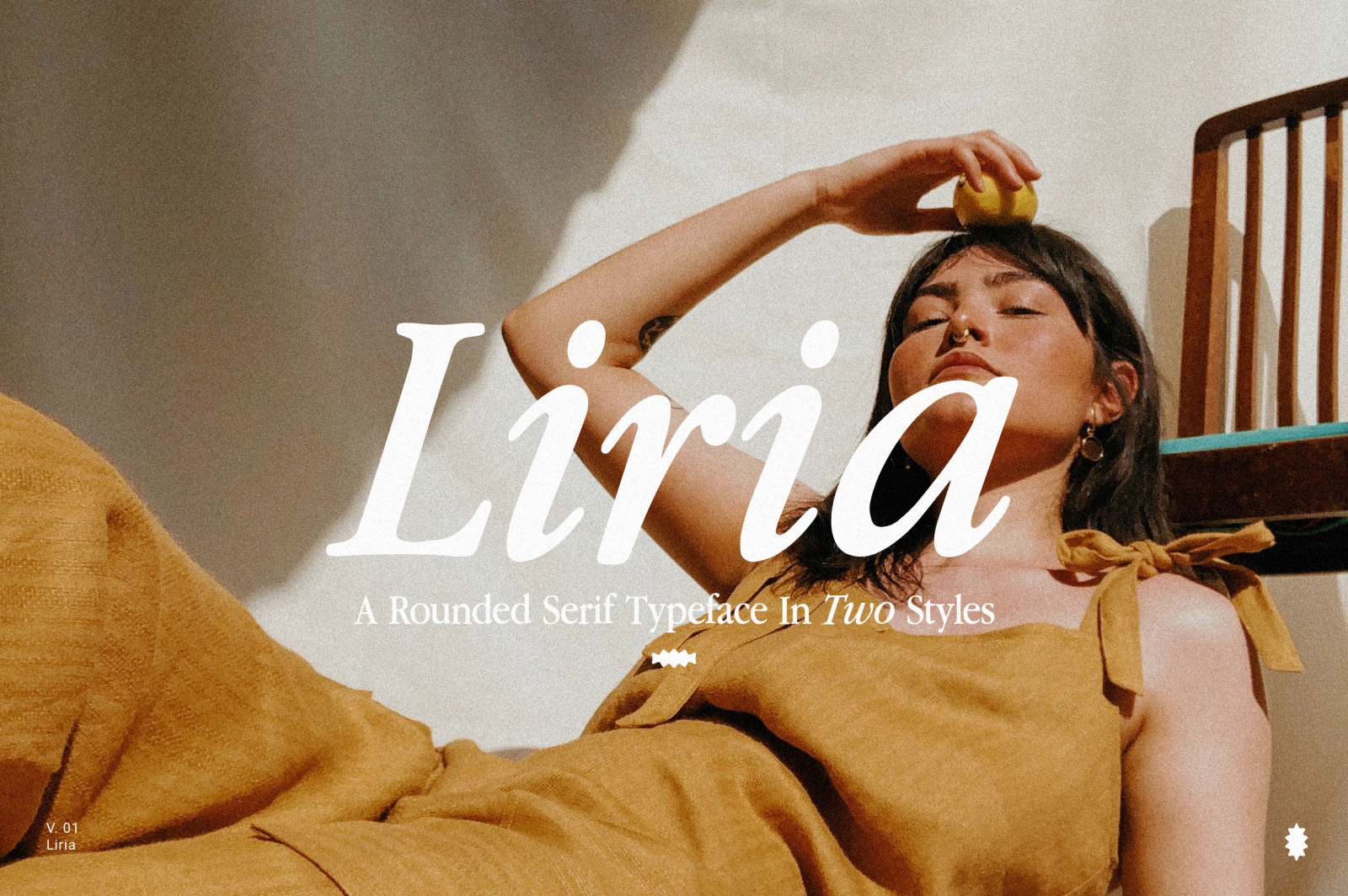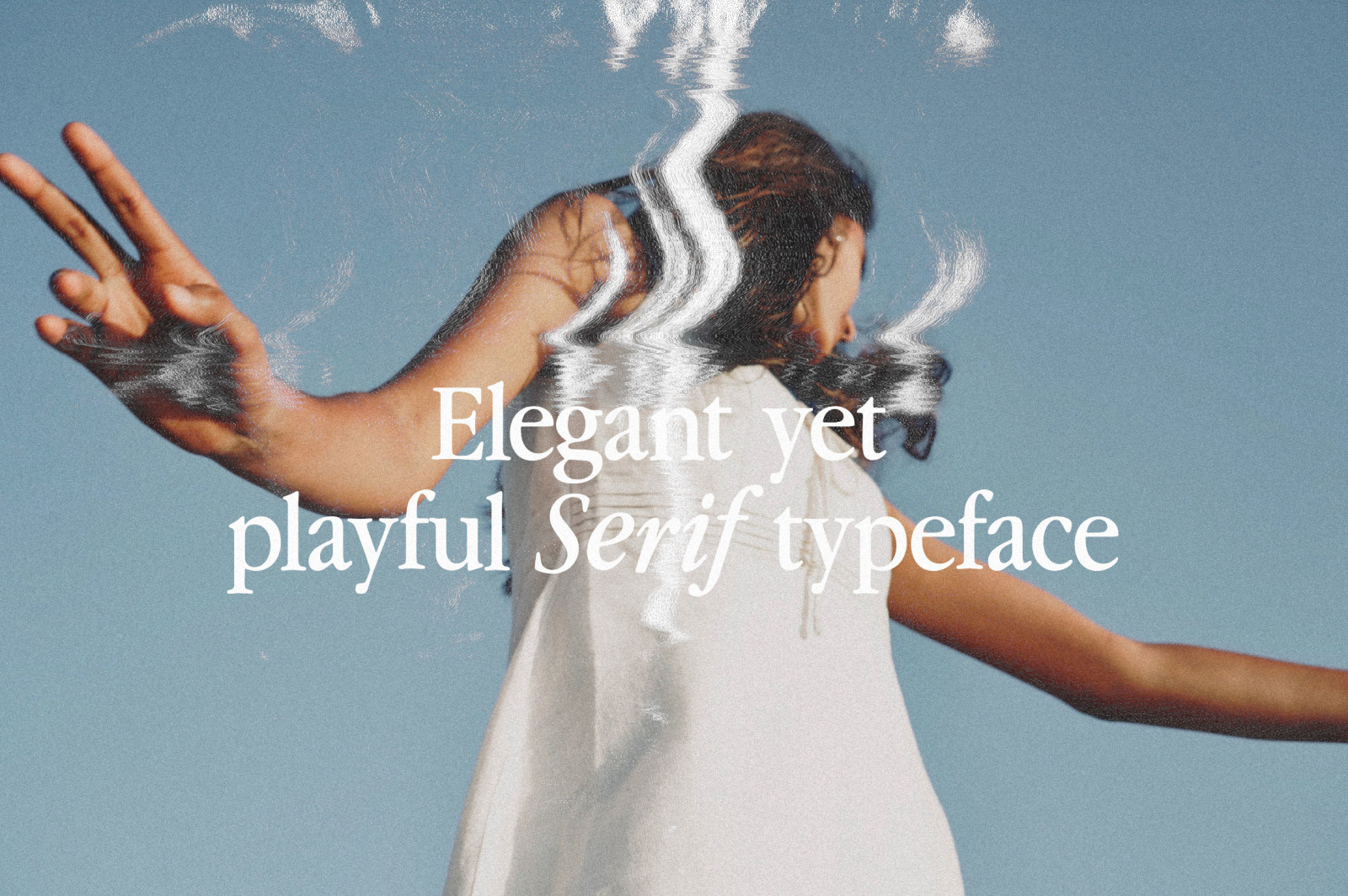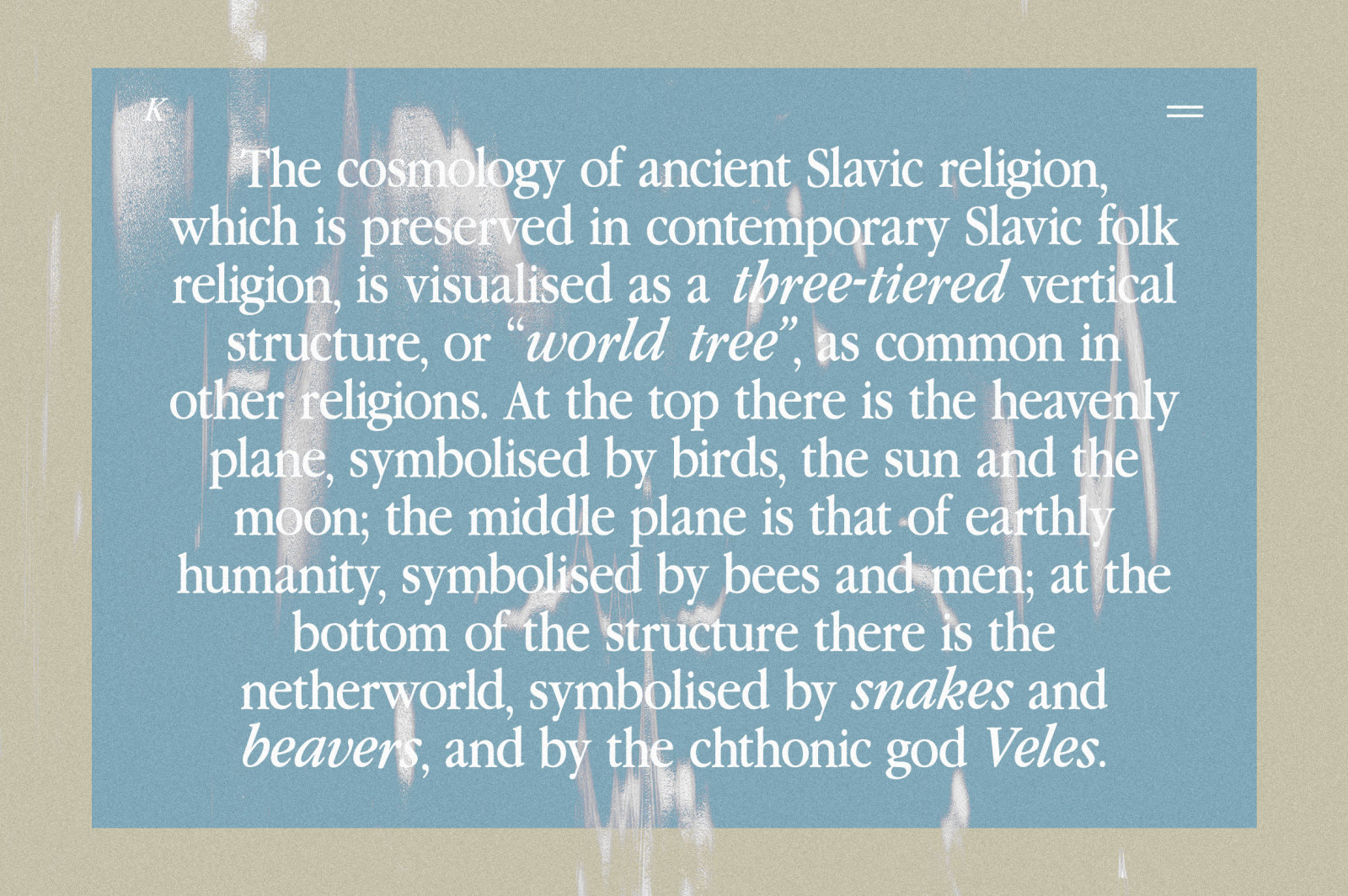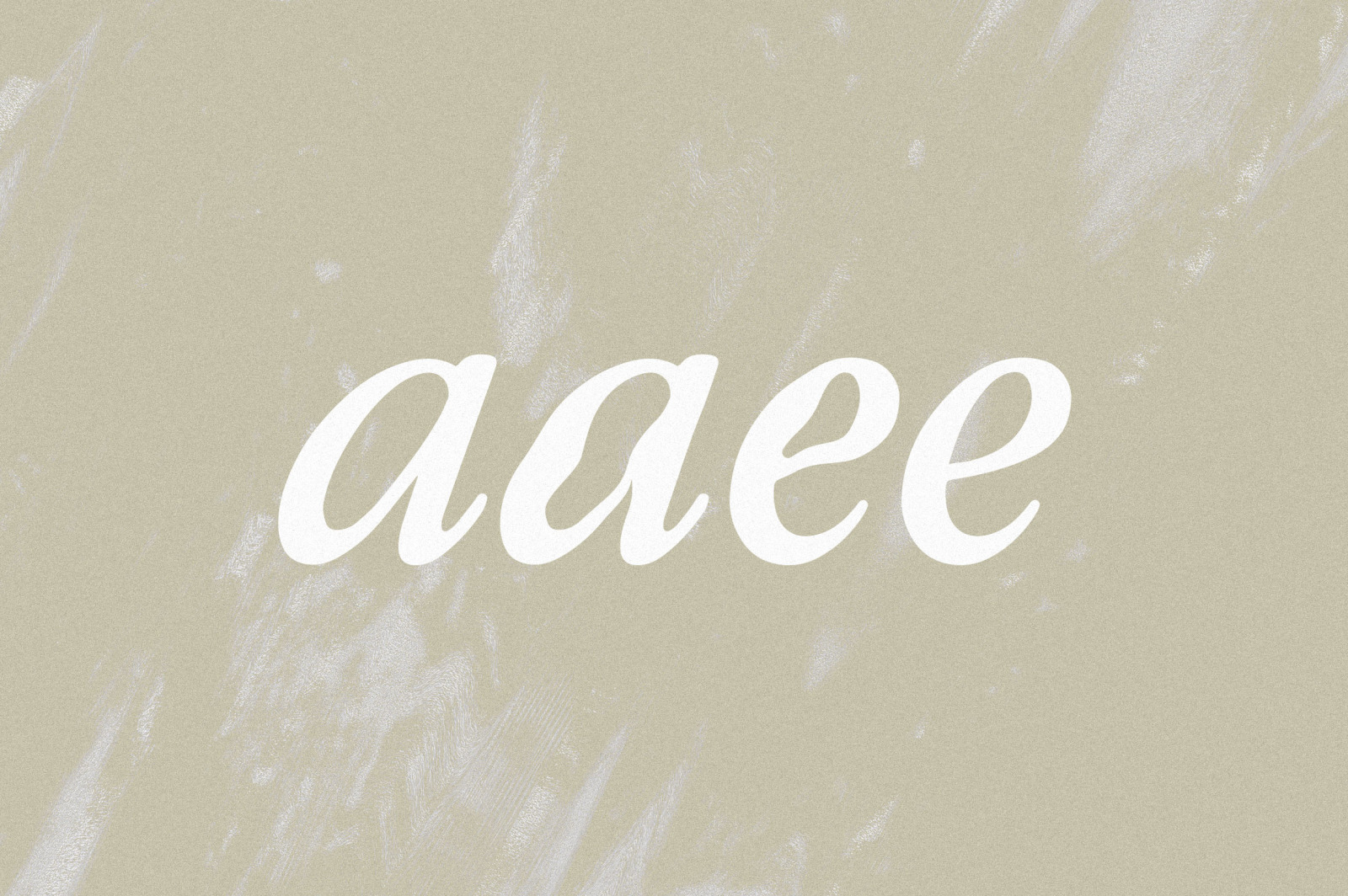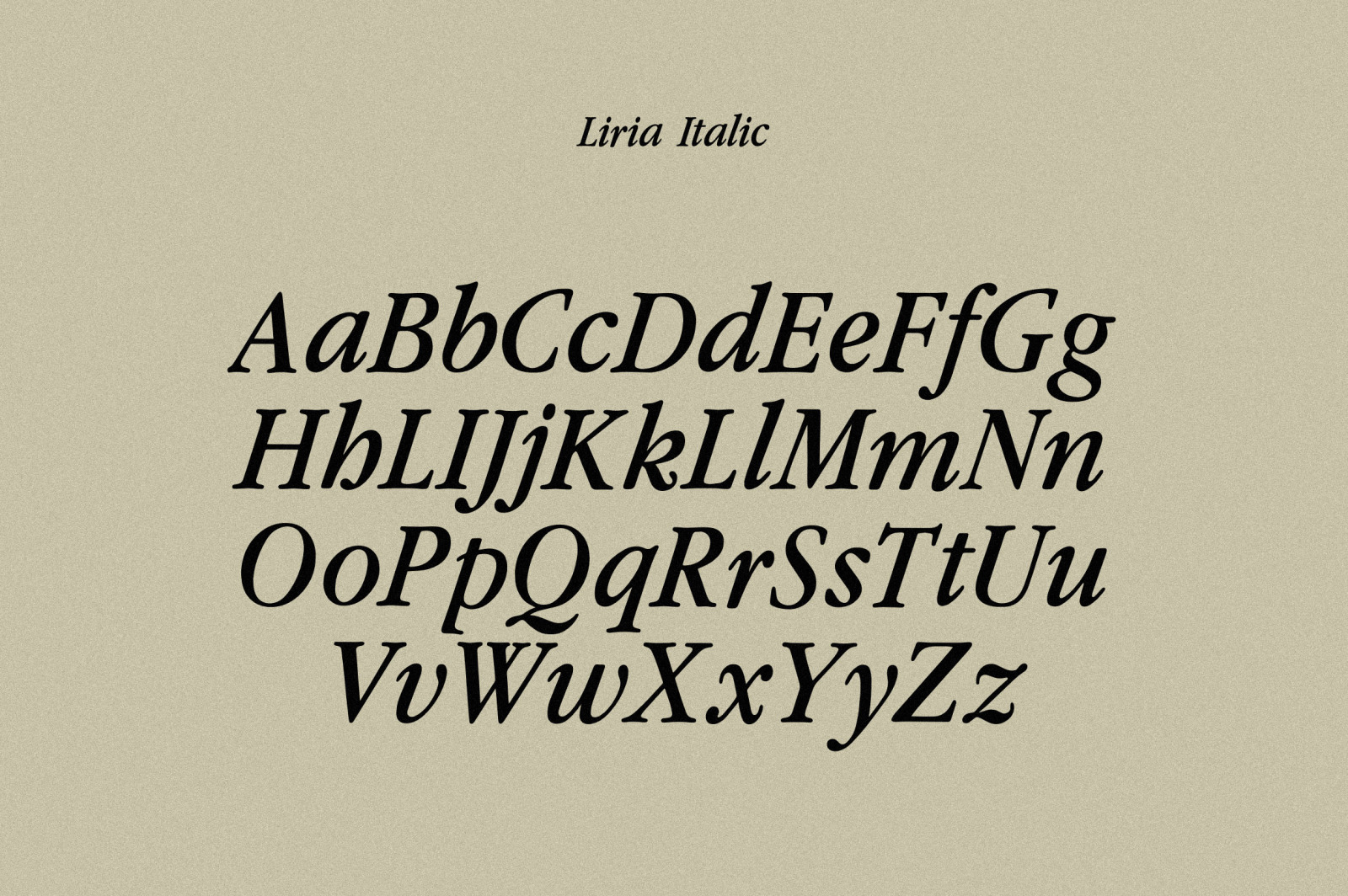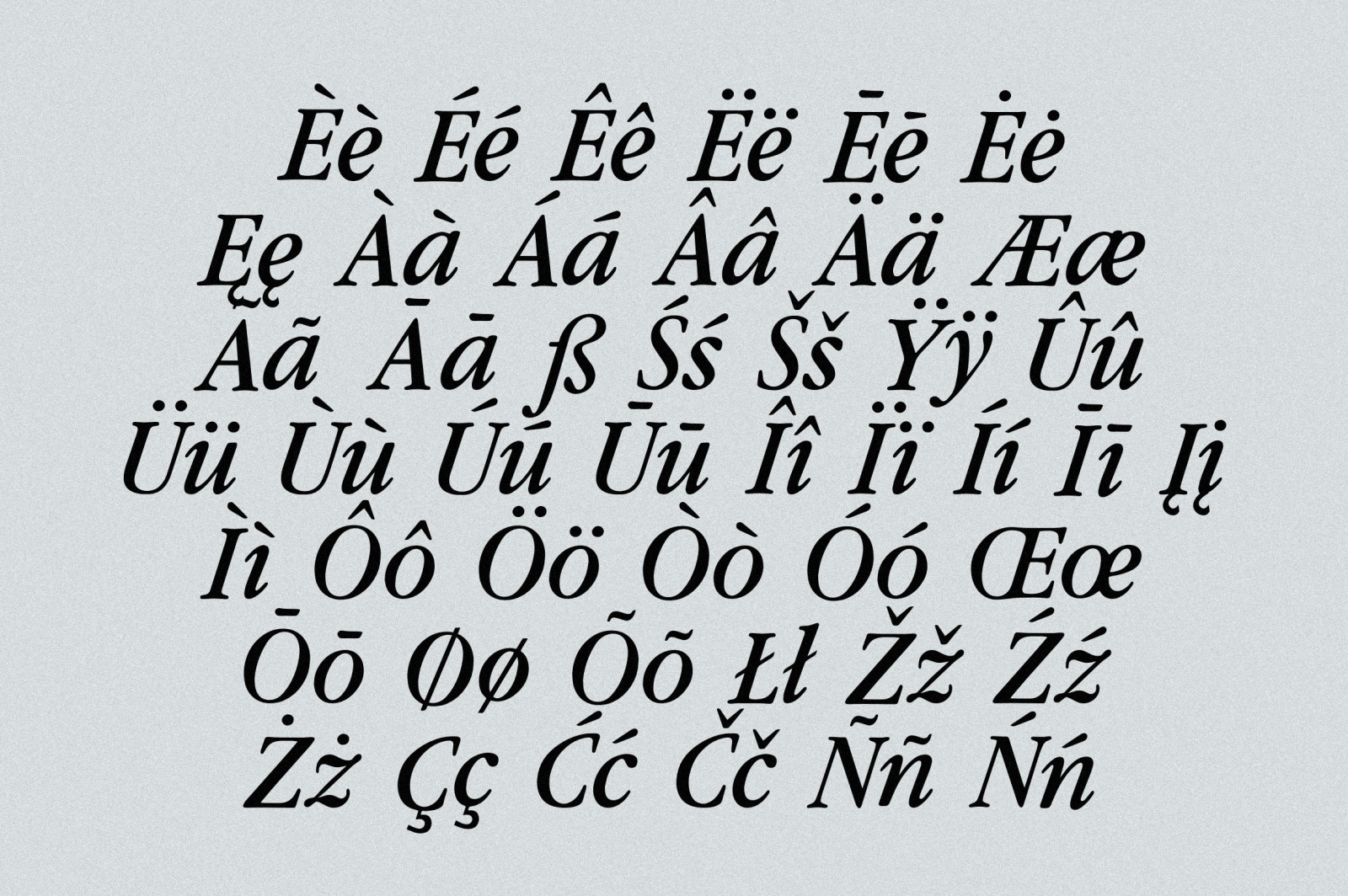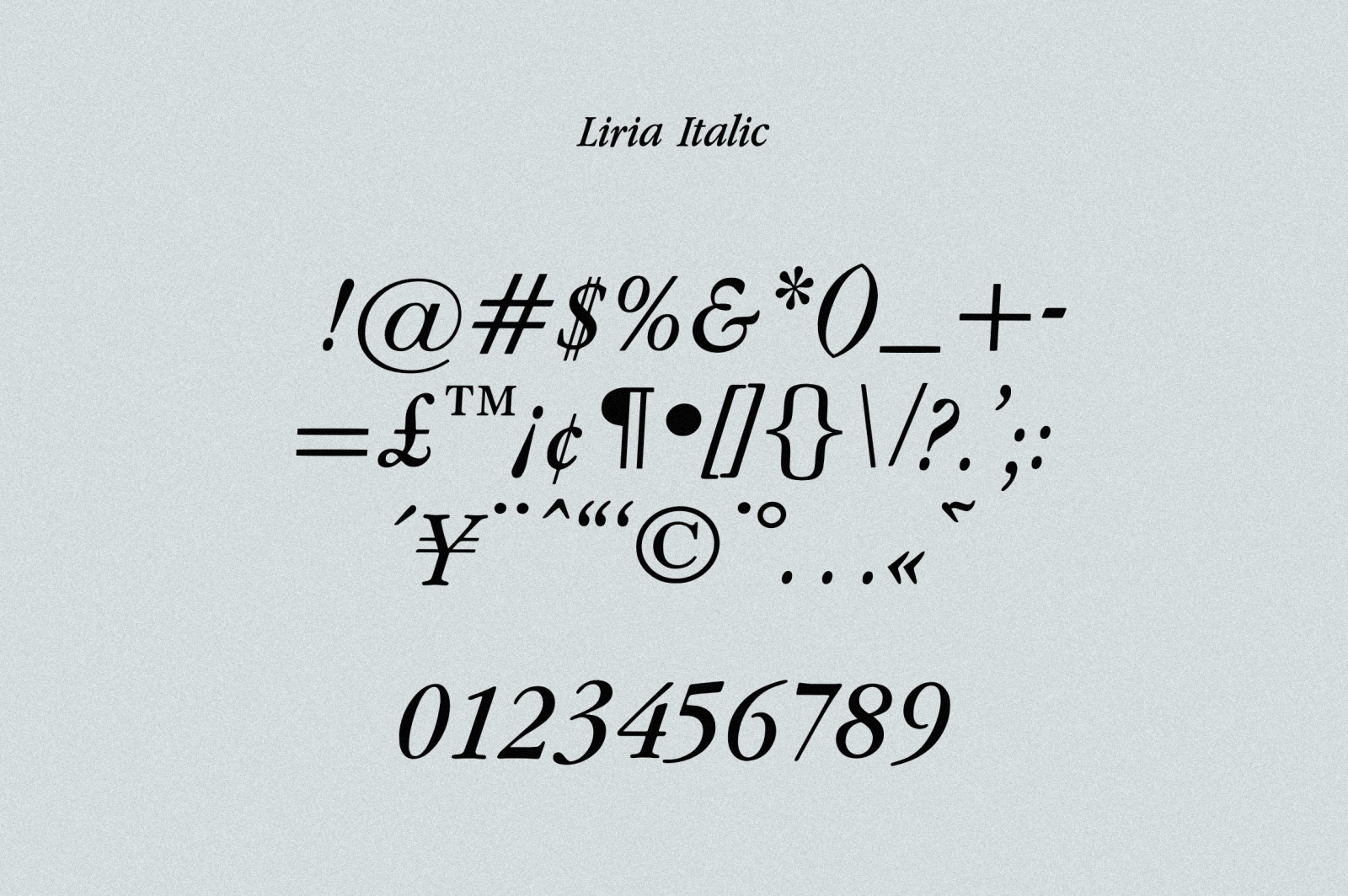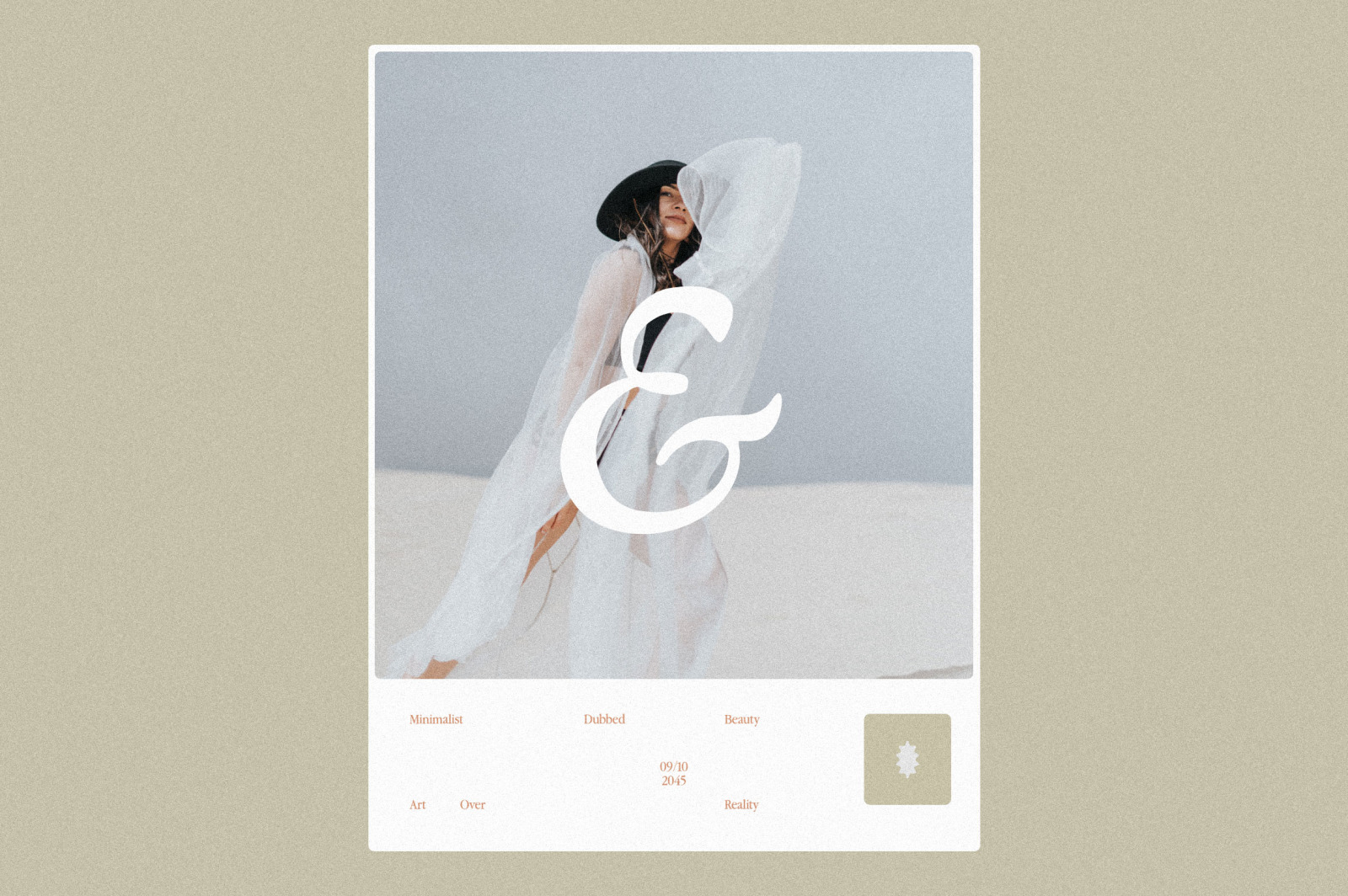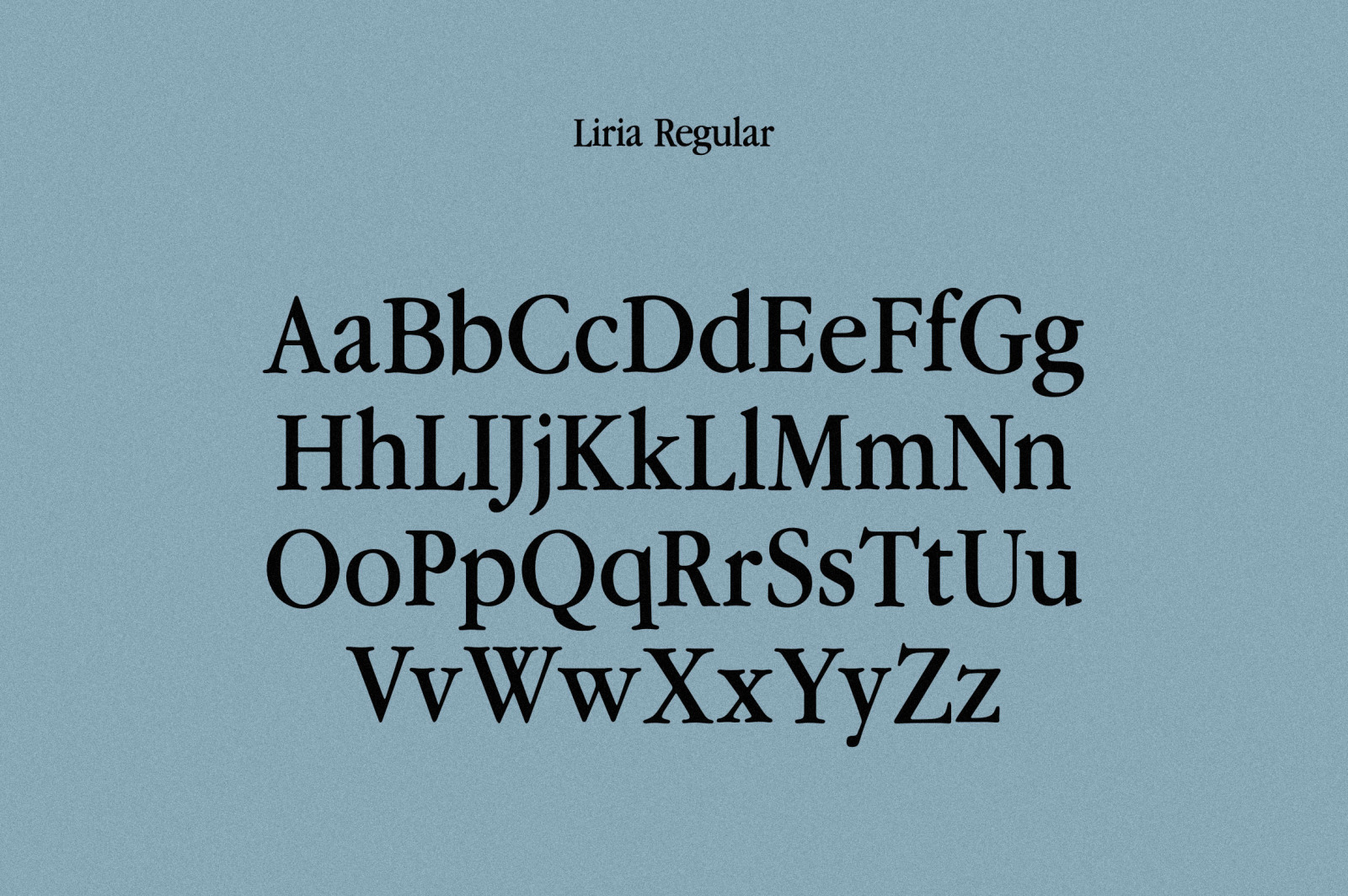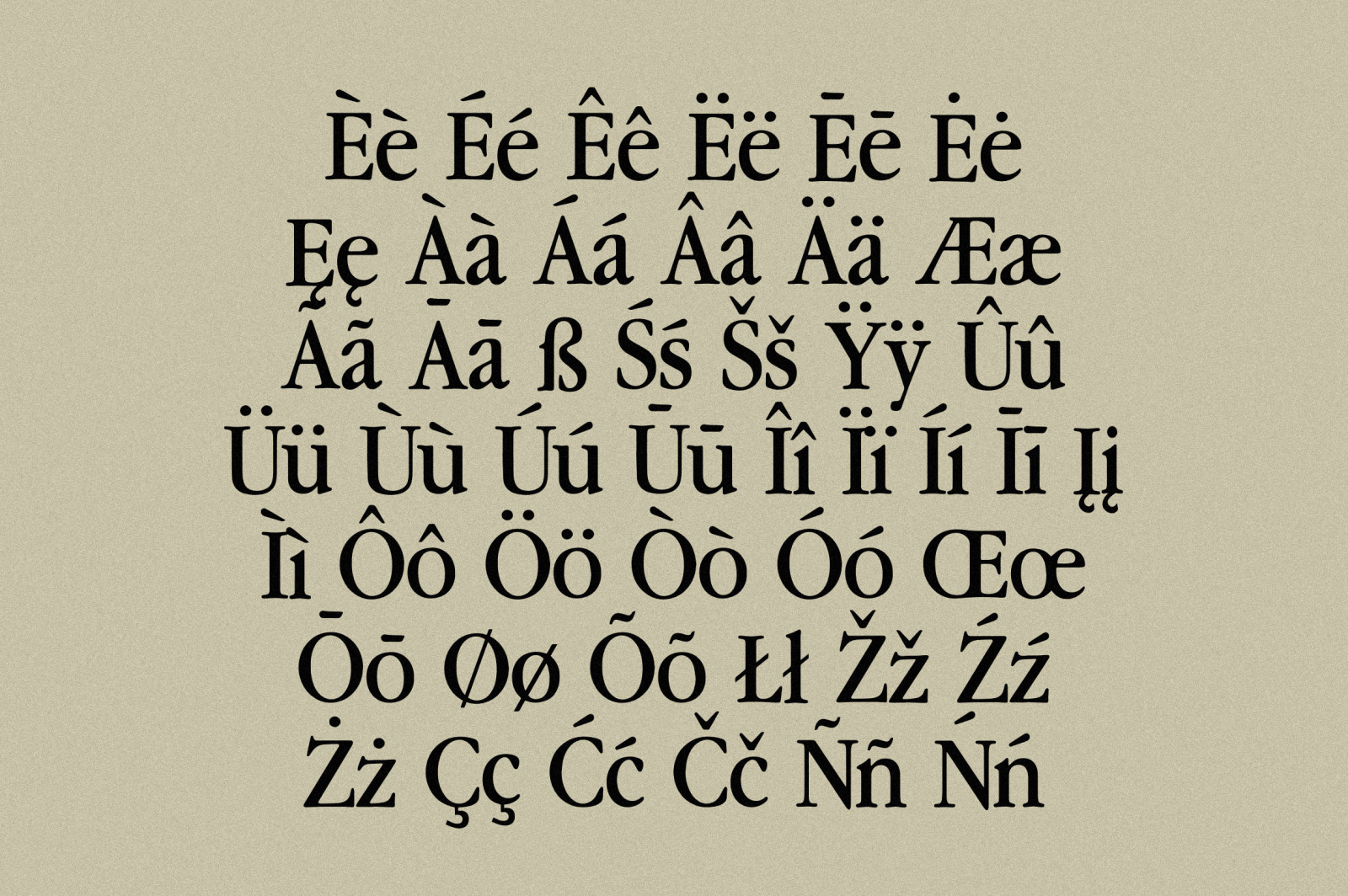
Liria Serif Typeface
Introducing Liria Serif Typeface
Perfect for large headlines or body text, for print or web based projects.
Have fun mixing Regular and Italic styles to add that 90s look to your designs.
The typeface includes:
- Liria Regular (uppercase & lowercase)
- Liria Italic (uppercase & lowercase)
- Numbers & punctuation
- Foreign language support